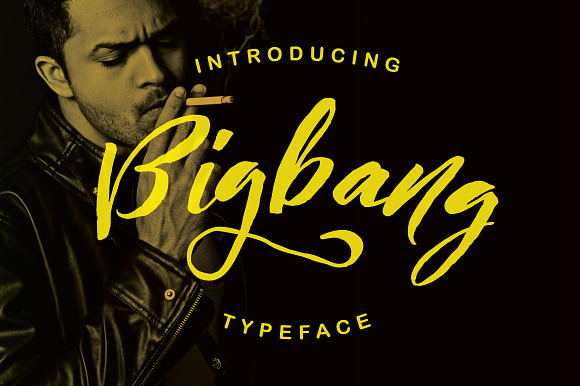
Bigbang Typeface
Bigbang Typeface is perfect for explosive marketing campaigns, cosmic entertainment branding, dynamic science museums, revolutionary tech startups, powerful concert posters, astronomical research institutions, space exploration materials, energetic event graphics, cosmic documentary titles, and universe-themed educational content.
Bigbang Typeface is exciting because it perfectly captures the monumental energy and cosmic power of the universe's creation, creating a typeface that embodies explosive force, infinite possibility, and the awe-inspiring magnitude of cosmic phenomena. This font brings cosmic sophistication and universal appeal to any project, making it ideal for organizations that want to convey breakthrough innovation, transformative power, and the mind-expanding wonder of scientific discovery. Its explosive character and cosmic scale create an atmosphere of universal significance that resonates with audiences fascinated by the grandeur of space and scientific exploration.
Bigbang Typeface family includes light, regular, medium, bold, and black weights, each available in roman and italic styles with cosmic symbols and astronomical ornaments, providing designers with comprehensive tools for creating explosive typography and universally impactful brand experiences.
This cosmic explosive typeface combines astronomical aesthetics with contemporary functionality, making Bigbang Typeface Free Download an outstanding choice for projects celebrating scientific discovery and cosmic wonder. The font's powerfully crafted letterforms feature explosive proportions and universe-inspired styling that reflect the incredible energy and infinite scale of cosmic creation and astronomical phenomena.
Whether you're designing space exploration branding, scientific institution materials, or cosmic entertainment campaigns, Bigbang Typeface delivers unmatched cosmic authenticity and explosive appeal. The font excels in both large-scale planetarium applications and detailed scientific documentation where cosmic wonder and astronomical accuracy create transformative educational experiences.
Space science professionals choose Bigbang Typeface for its ability to instantly communicate cosmic scale and scientific wonder while creating emotional connections with audiences seeking understanding of the universe and astronomical phenomena. The font's explosive character makes it particularly effective for space agencies, science museums, and astronomical research institutions.
Each character reflects the explosive energy of cosmic creation, featuring powerful construction and universal proportions that create typography as vast and inspiring as supernovas, galaxy formation, and the infinite expanding universe itself.